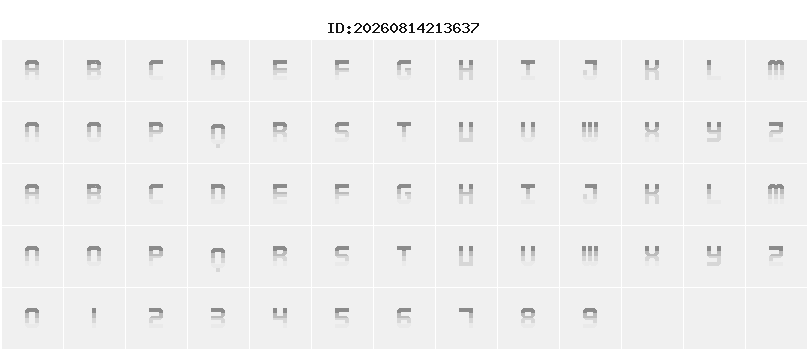
• Font Name: Starlight
• Designer: GeronimoFonts
• Description: ‚ÄúStarlight‚Äù was built with FontStruct
About Starlight.ttf
Starlight.ttf is a modern, elegant sans-serif font designed for ultimate readability and visual harmony. Perfect for branding, headlines, web design, and print materials.